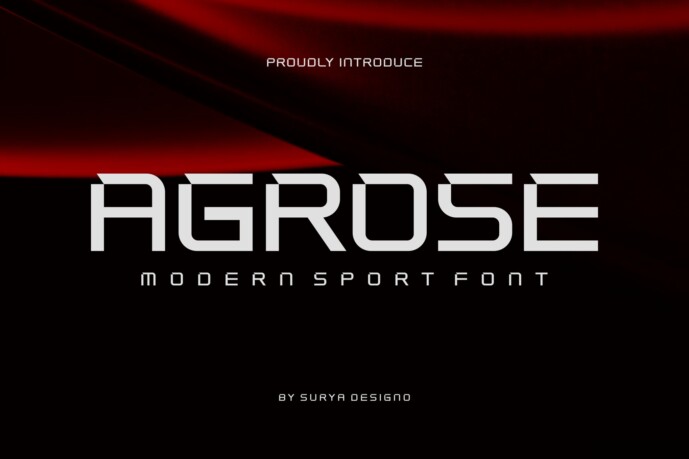
Agrose Font
Introducing our new product Agrose modern fonts.
Agrose Fonts modern font is a bold and authentic display font. The font is suitable for any branding project like logo,printing, esport, and many more. Outstanding in a wide range of contexts.